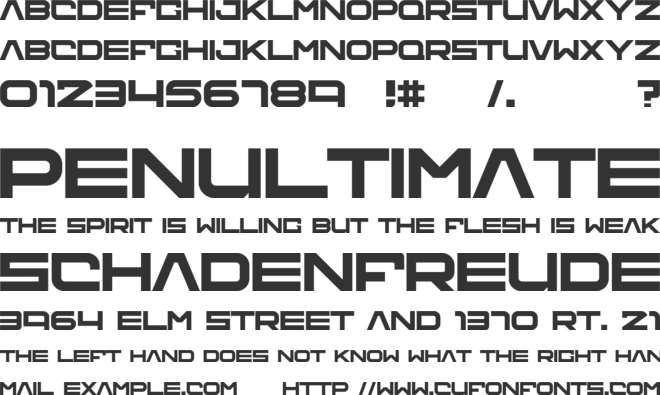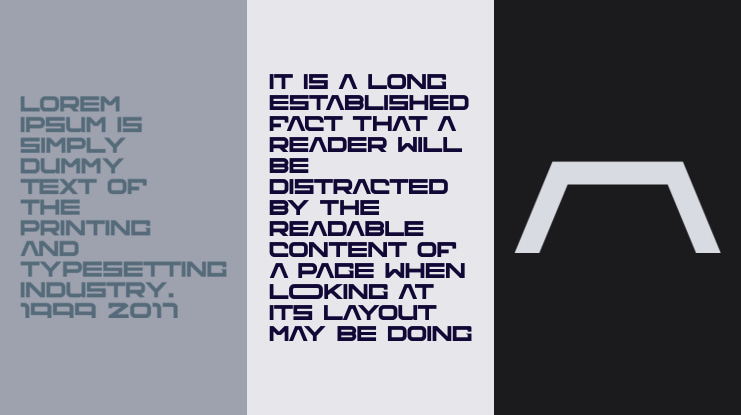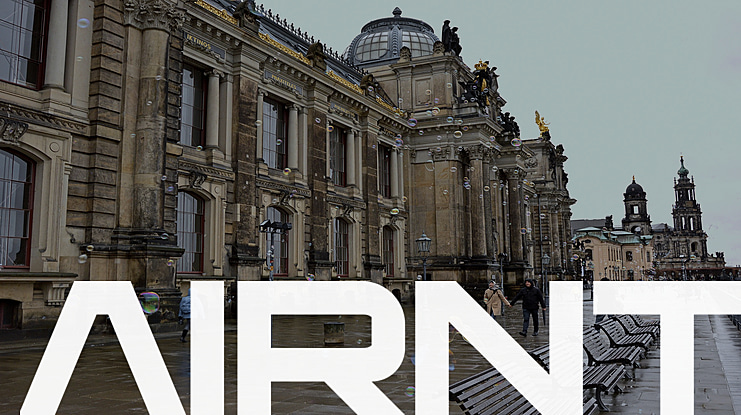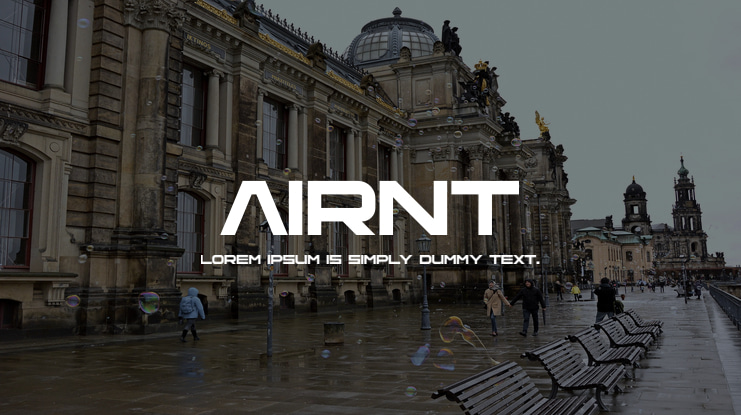
Airnt Font Family
This year, I wanted to outclass my previous fonts (that I do believe are still awesome today) Quantum and Aquire. Arint is a font I class in the realm of Futuristic and Urban Sans clash. 4 weights/styles to choose from.
- Regular
- Bold
- Quantum and a special characters stretch version when you type a double letter eg. DD for a stretched look letter D.